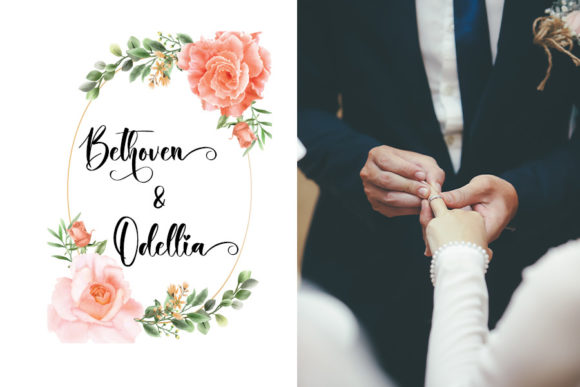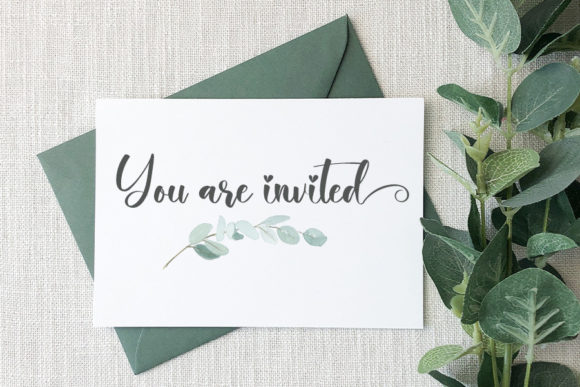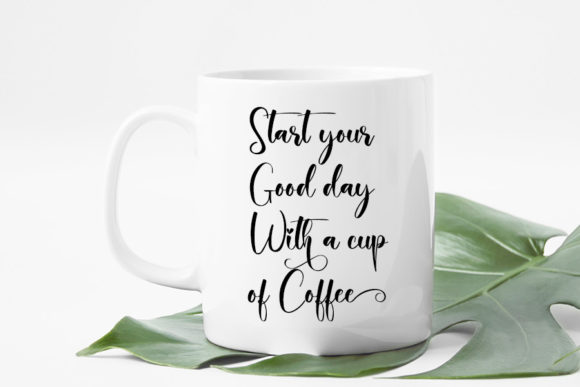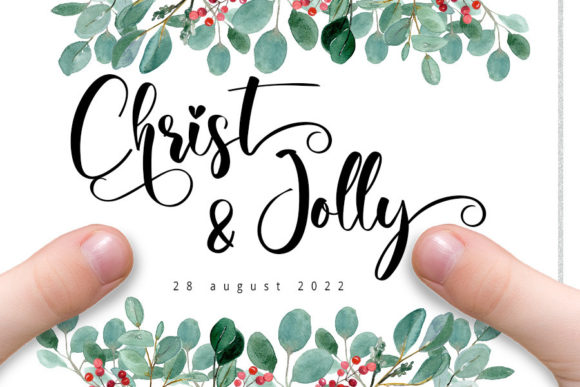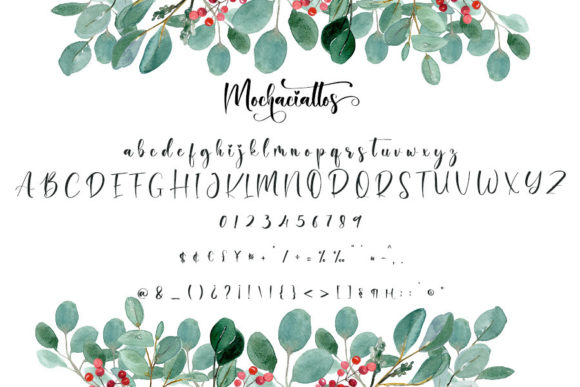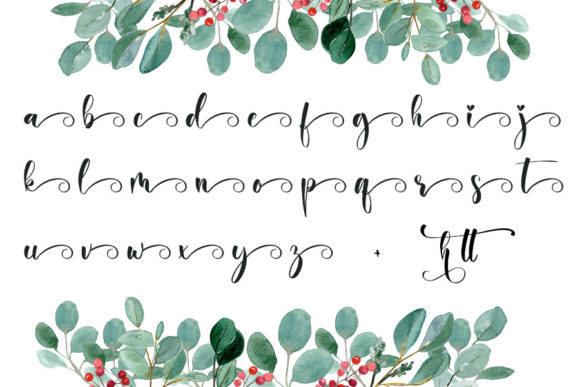
Introduction to Mochaciattos Font
There’s something magical about finding the perfect font for a creative project. You know, that moment when everything falls into place, and your design comes alive. For designers, this moment is what makes all the late nights and early mornings worth it. And today, we’re excited to introduce you to the Mochaciattos Font, a game-changing design resource that’s about to take your projects to the next level.
With its charming and elegant feel, Mochaciattos Font is perfect for any design that needs a handwritten touch. Whether you’re working on wedding invitations, thank you cards, quotes, or logos, this font is sure to impress. And the best part? It’s PUA encoded, making it incredibly easy to access all the glyphs and swashes you need to create high-quality designs.
Key Features of Mochaciattos Font
- High-quality, unique design ideal for creative projects and design resources
- Features a transparent background, making it easy to use with any background image or color
- Includes a range of characters, including uppercase and lowercase letters, numbers, and special characters
- Designed to be highly legible and visually appealing at various resolutions, including 72 dpi and 300 dpi
- Perfect for use in digital design, print projects, and web design due to its high quality and versatility
Honest Review: Mochaciattos Font
I recently had the chance to work with the Mochaciattos Font in a creative project and I must say, it was a pleasant experience. This font is a great design resource for anyone looking to add a touch of elegance to their work.
- ✨ High quality design: The Mochaciattos Font is beautifully crafted with intricate details and smooth lines.
- ✨ Transparent background: The font’s transparent background makes it easy to use on any design without worrying about clutter.
- ⚠️ Limited character set: The font only includes a limited set of characters, which may not be suitable for all design projects.
- ⚠️ Not ideal for small text: The font’s intricate details may not be suitable for small text sizes, making it harder to read.
Overall, I’m impressed with the Mochaciattos Font and would recommend it for designers looking to add a touch of sophistication to their work. With its high-quality design and transparent background, it’s a great addition to any design resource collection.
Tips for Getting the Most Out of Mochaciattos Font
Use the Mochaciattos Font in conjunction with a transparent background to create a modern and sleek design. You can also use the font in combination with other design elements, such as shapes and images, to create a unique and eye-catching design. The Mochaciattos Font is a free download, making it an accessible design resource for any creative project.
The Mochaciattos Font is a versatile design resource that can be used for a variety of creative projects, including branding, marketing materials, and digital products. The font’s modern and sleek design makes it perfect for use in a variety of industries, including fashion, technology, and healthcare.